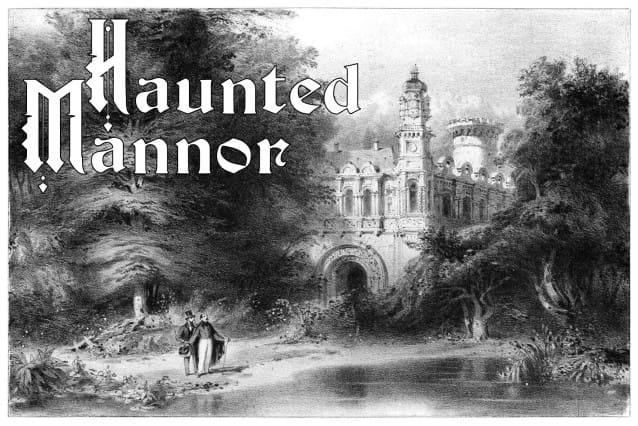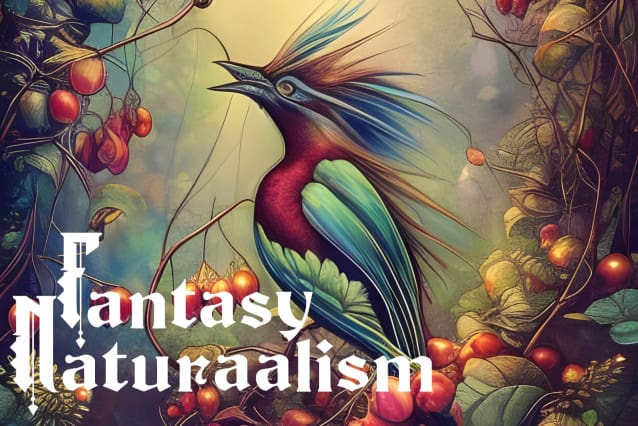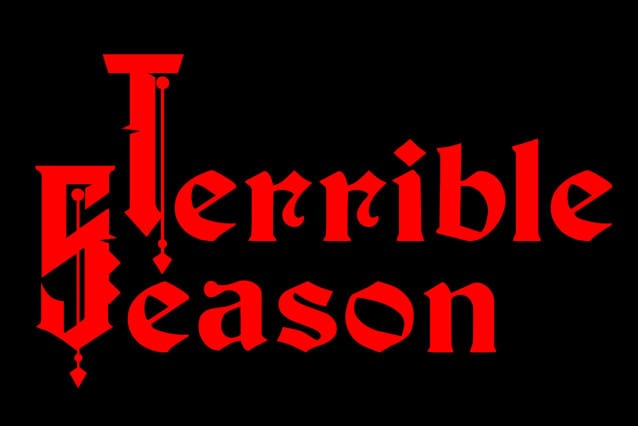
Terrible Season Font
Terrible Season Font a stunning reproduction of ancient scripts and medieval manuscripts. This font imbues every word with detail-rich flourishes that highlight its timeless elegance, a testament to more traditional times of unrivaled craftsmanship. Unveil a sublime fusion of luxury and classic sophistication, making your titles, invitations, and design work echo with a uniquely historical aesthetic. Ideal for projects seeking that touch of age-old elegance, this font elevates your design from mere communication to a stately affirmation of tasteful refinement.